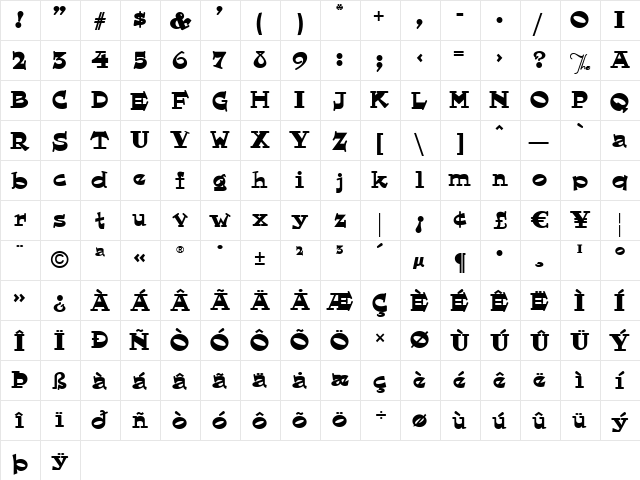
Hornswoggled Normal
Design Context for Hornswoggled Typeface
Hornswoggled is a composed and adaptable typeface that performs quietly and consistently across a wide range of design contexts.